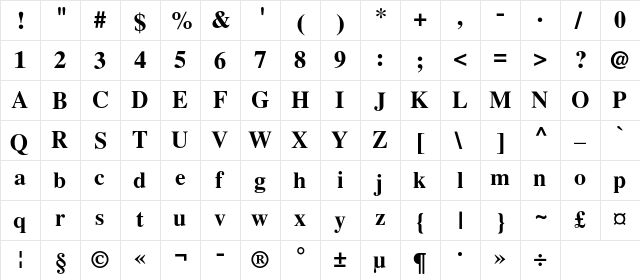
LatinskijC Bold Font Preview
LatinskijC Bold
LatinskijC Bold Font Details
Design Context for LatinskijC Typeface
LatinskijC takes a measured approach to typography — its balanced proportions and neutral character make it a reliable workhorse for both digital and print work. The heavy weight commands attention and anchors typographic hierarchies.